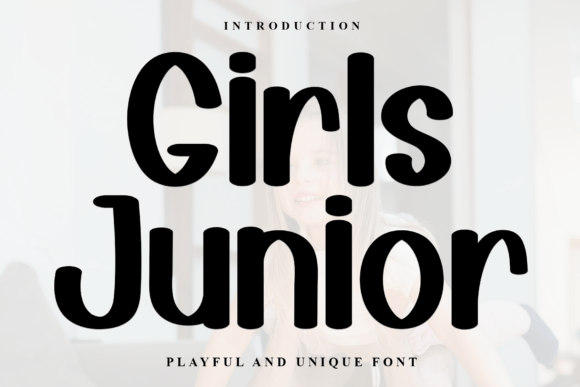
Introduction to Girls Junior Font
Girls Junior is a sweet and friendly handwritten font.
Girls Junior Font offers exceptional quality and versatility, making it a valuable addition to your design toolkit. Whether you’re creating for personal projects or commercial use, Girls Junior Font delivers professional results.